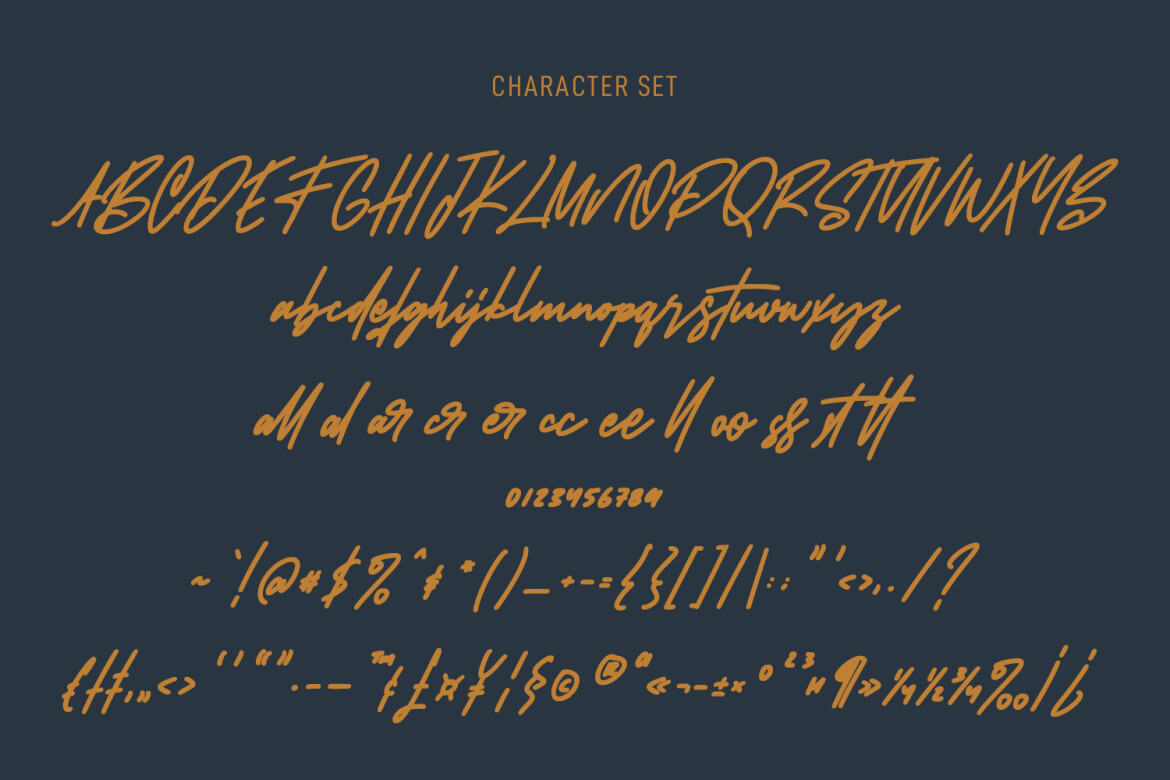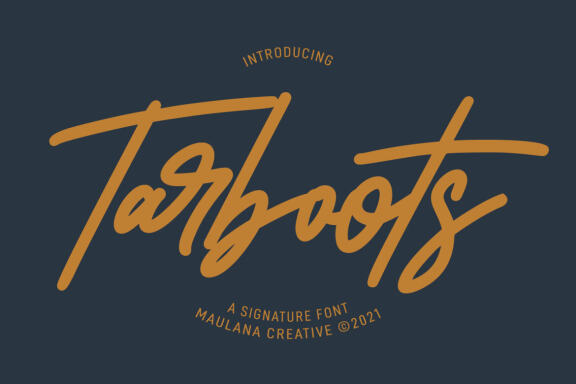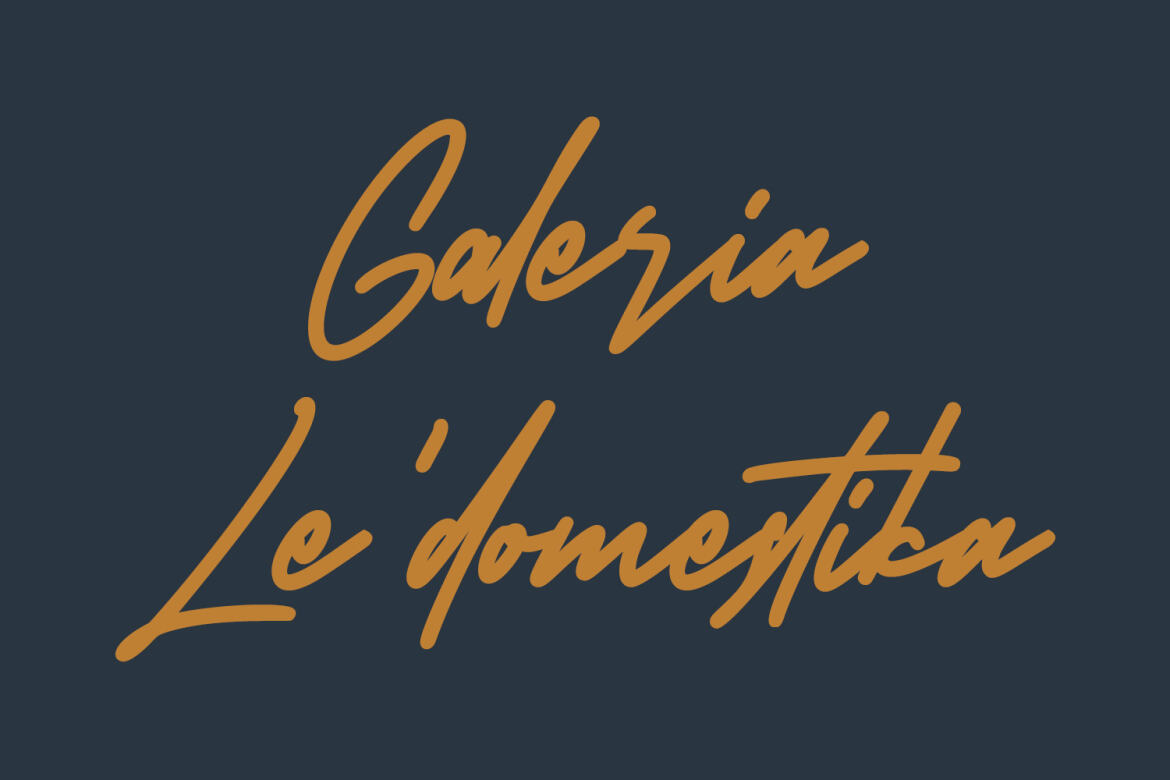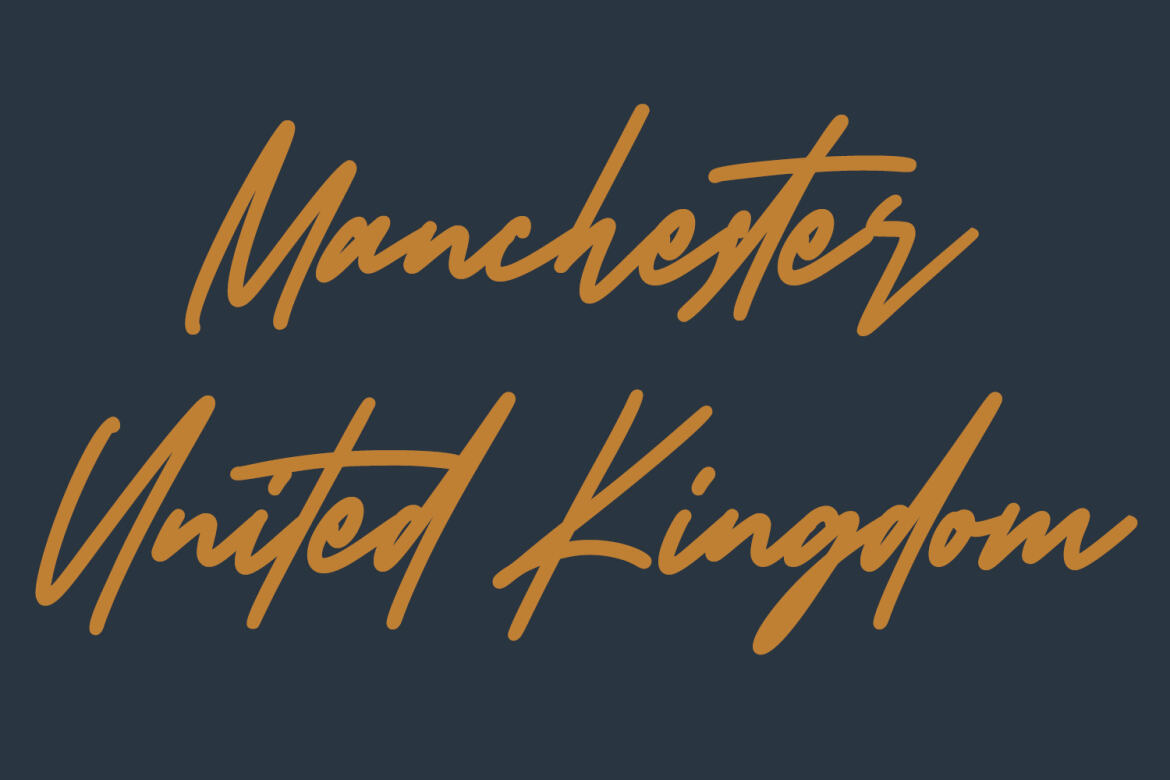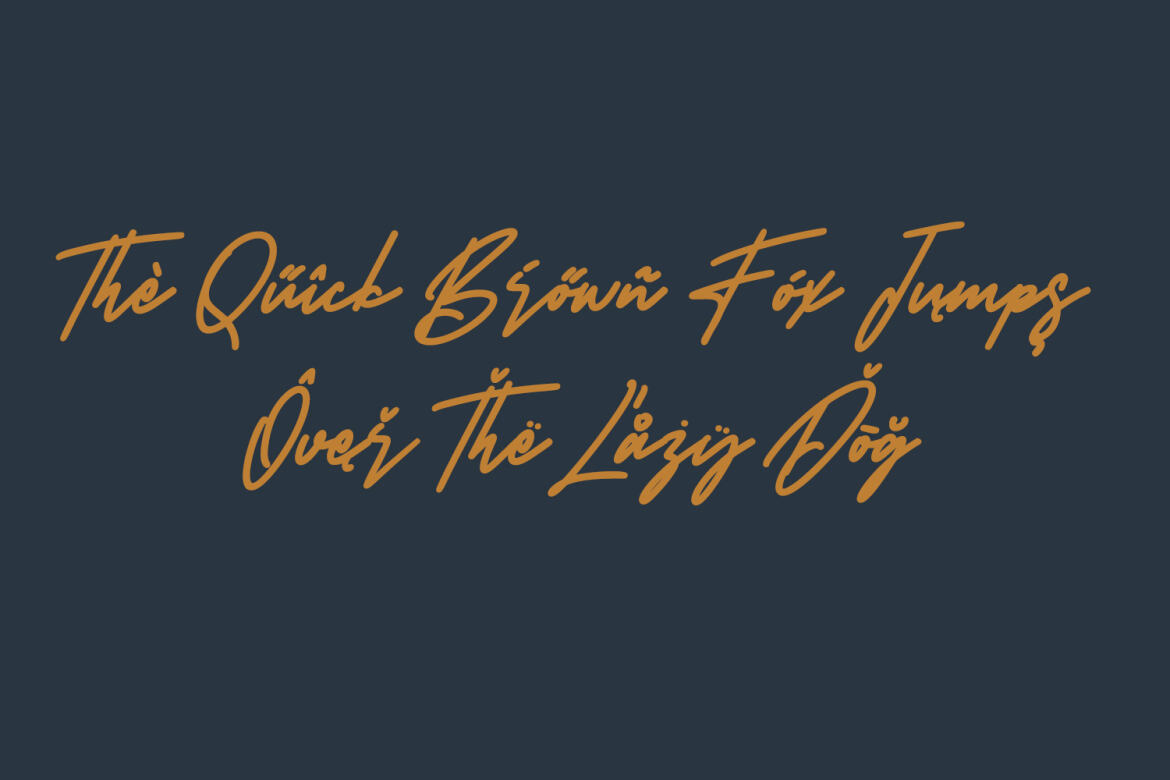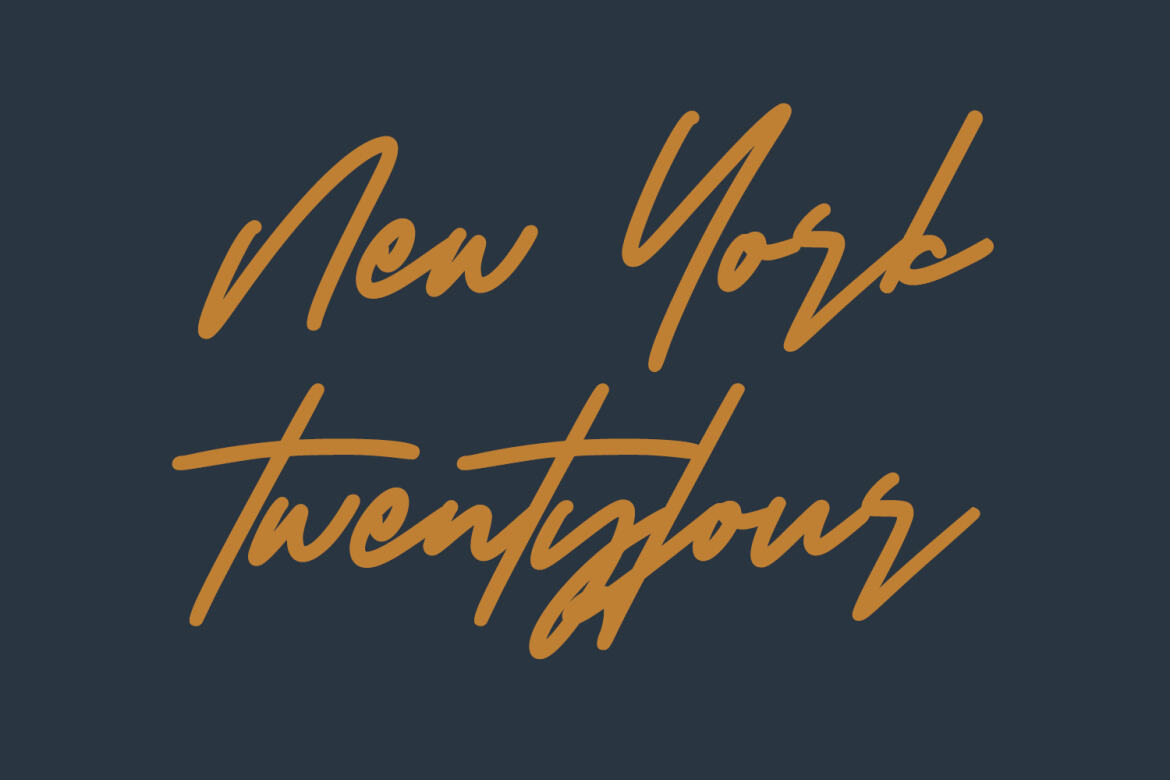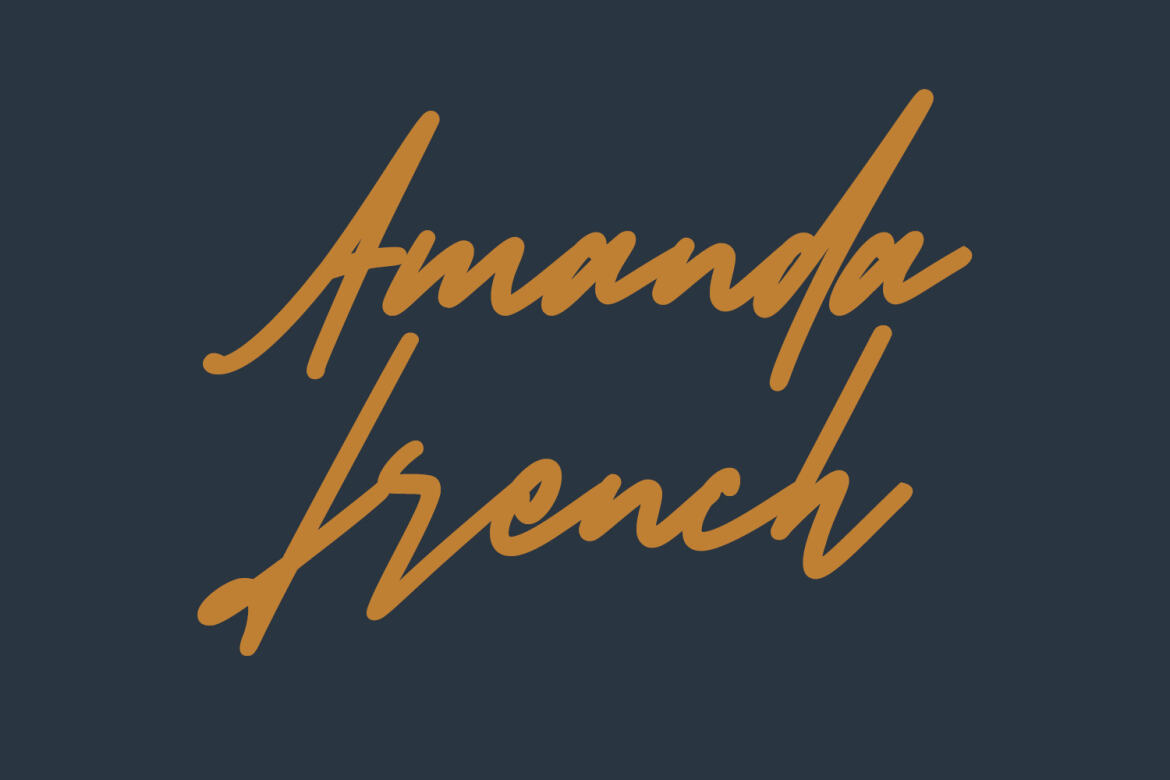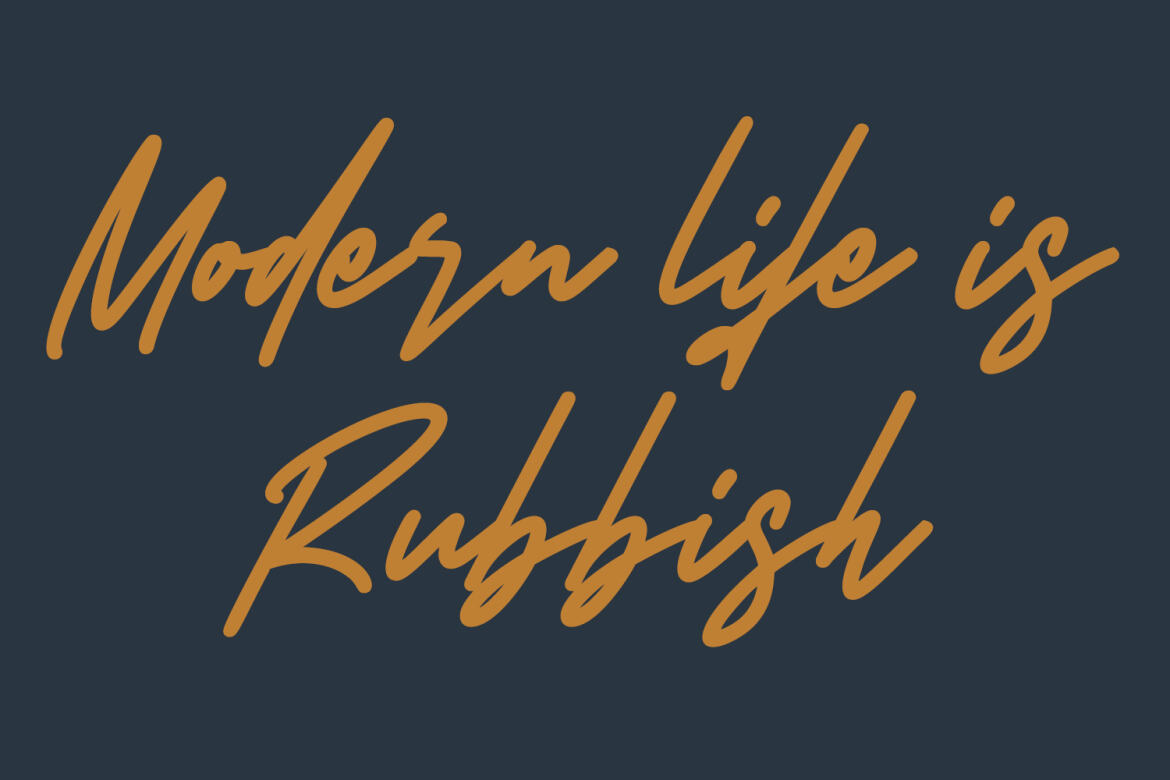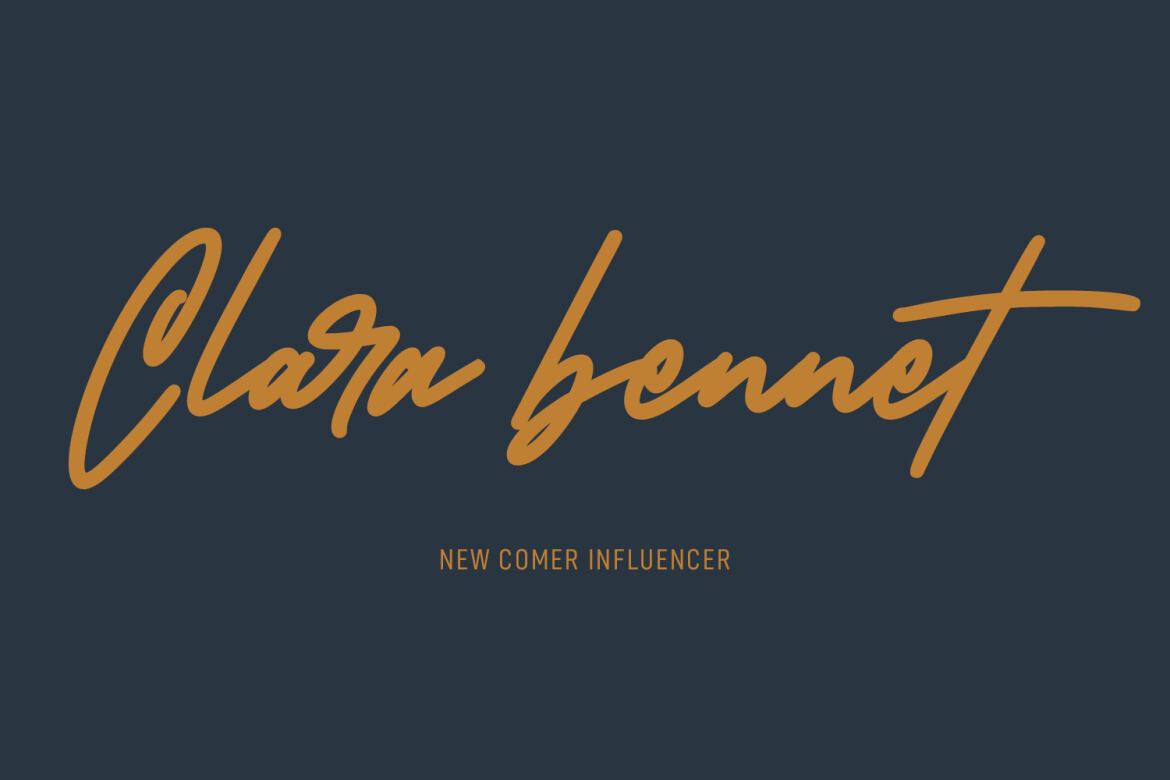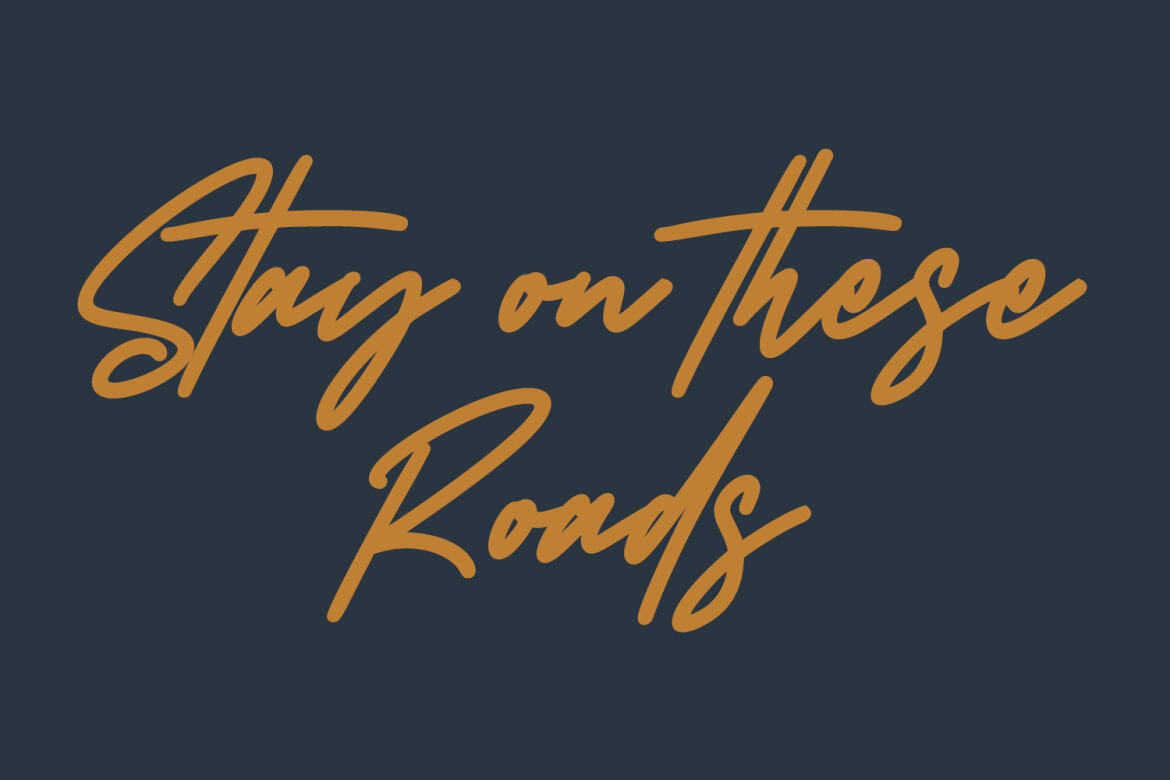
Tarboots Signature - Free Font
Tarboots
Tarboots is a casually expressive signature font. With bold stroke, slant and fun character with a bit of ligatures. To give you an extra creative work. Tarboots font support multilingual more than 100+ language. This font is good for logo design, Social media, Movie Titles, Books Titles, a short text even a long text letter and good for your secondary text font with sans or serif. Make a stunning work with Tarboots font.